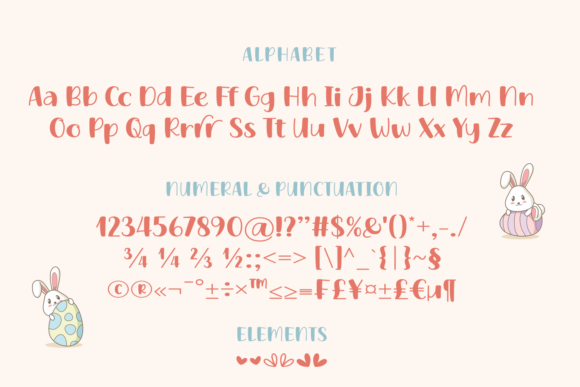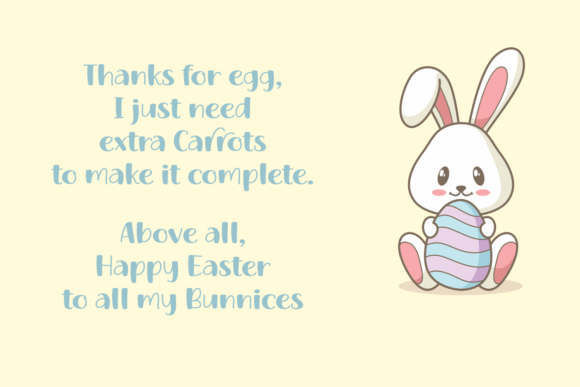
Rabbit Garden Font
db-ku.com - Script & Handwritten -- Rabbit Garden is an incredibly unique display font. Masterfully designed to become a true favorite, this font has the potential to bring each of your creative ideas to the highest level!